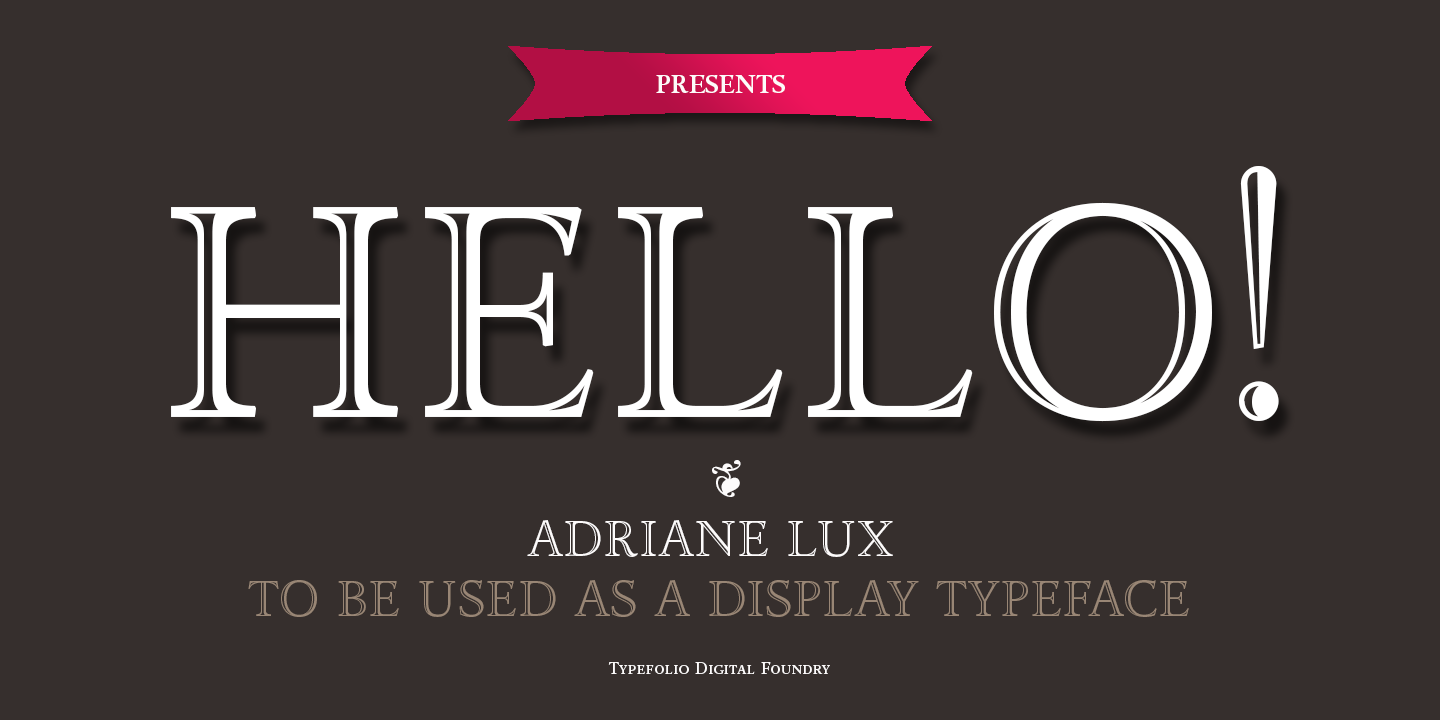
Adriane Lux Font is ideal for luxurious design projects including high-end fashion brands, exclusive jewelry catalogs, premium spa resorts, luxury hotel branding, upscale cosmetics packaging, elite beauty salons, sophisticated lifestyle magazines, and opulent marketing campaigns. This glamorous typeface works perfectly for luxury car dealerships, premium real estate agencies, exclusive boutiques, high-end wedding planners, and projects that celebrate refined elegance and affluent lifestyle experiences.
What makes Adriane Lux Font exciting is its exquisite luxury character that perfectly captures the essence of sophisticated glamour and premium lifestyle elegance. The font features refined letterforms with luminous qualities that reflect the brilliance and exclusivity of luxury experiences. Its opulent design elements embody the spirit of high-end craftsmanship and elite sophistication, making it perfect for projects that need to convey prestige, exclusivity, and connection to luxury heritage. The carefully crafted luminous details create an atmosphere of golden elegance and premium sophistication.
Adriane Lux Font comes in multiple family variations including platinum, gold, diamond, and crystal styles. Each weight maintains the distinctive luxury character while offering different levels of opulent intensity and premium presence. The font family includes luxury alternates, glamorous ligatures, and exclusive variations that provide designers with comprehensive options for creating truly magnificent and luxuriously authentic typographic compositions that celebrate elite lifestyle.